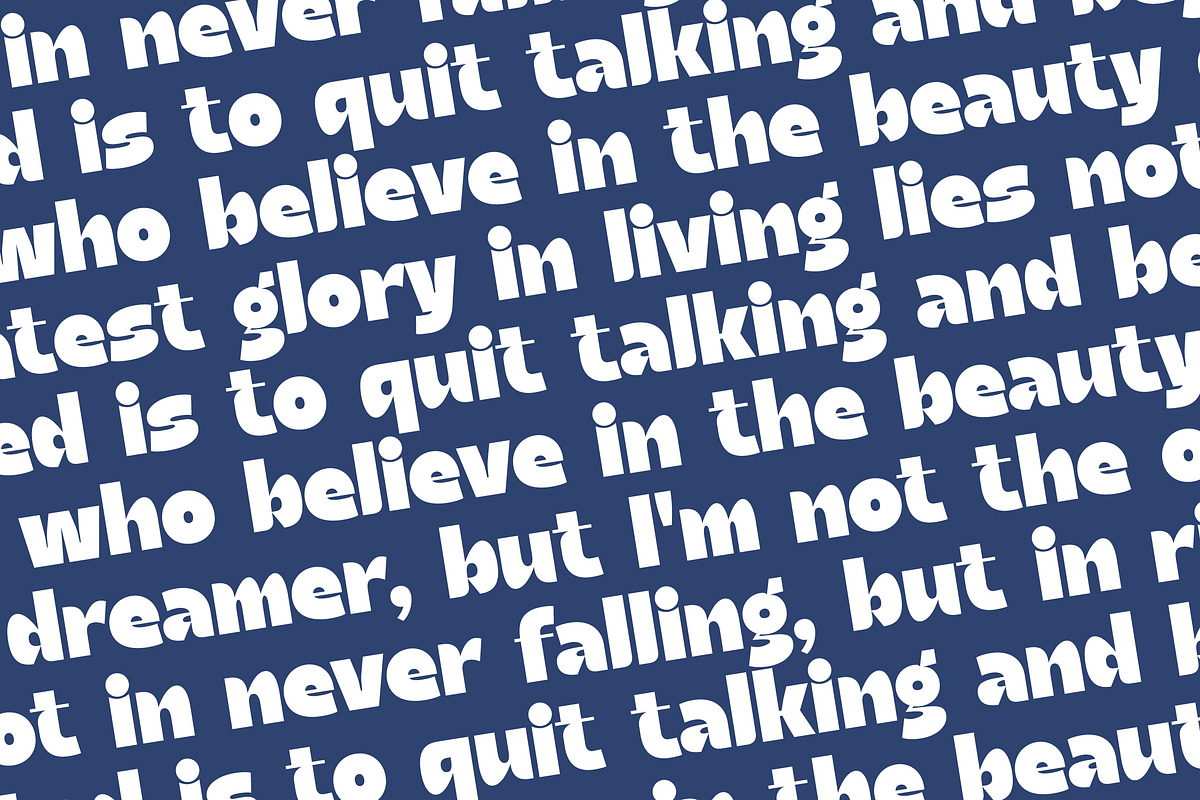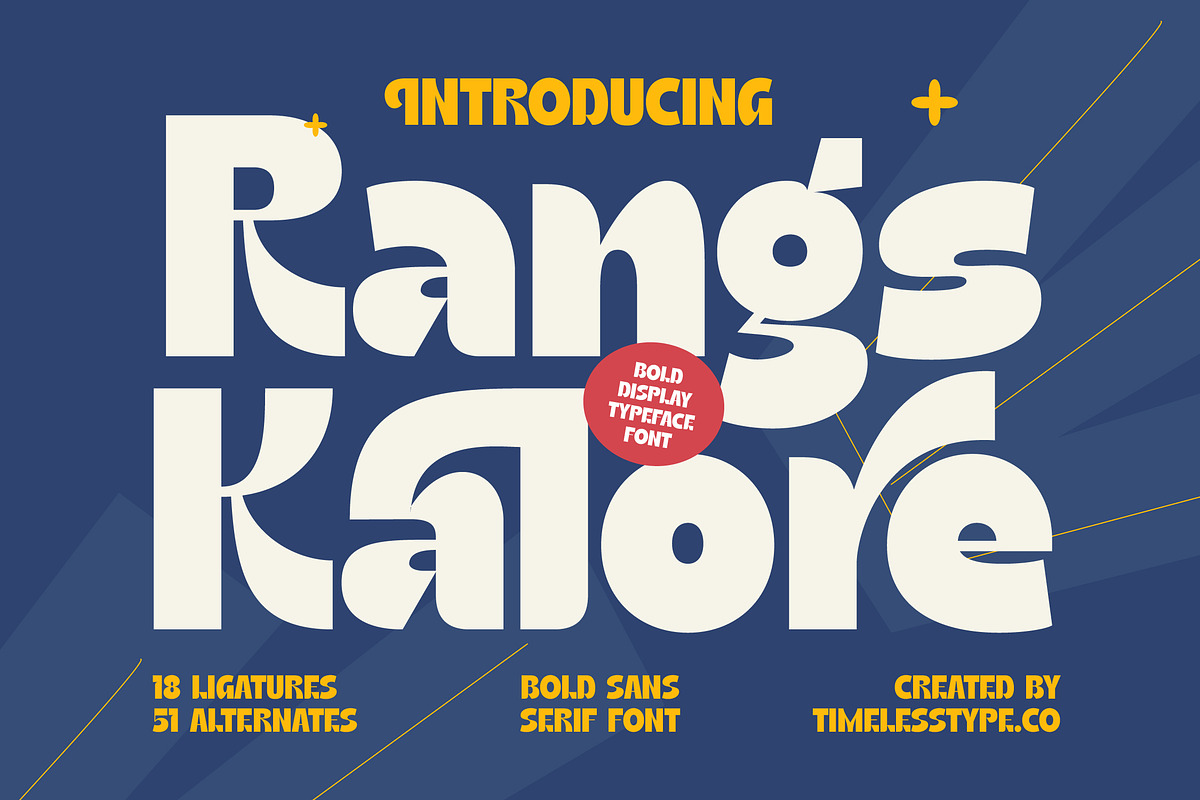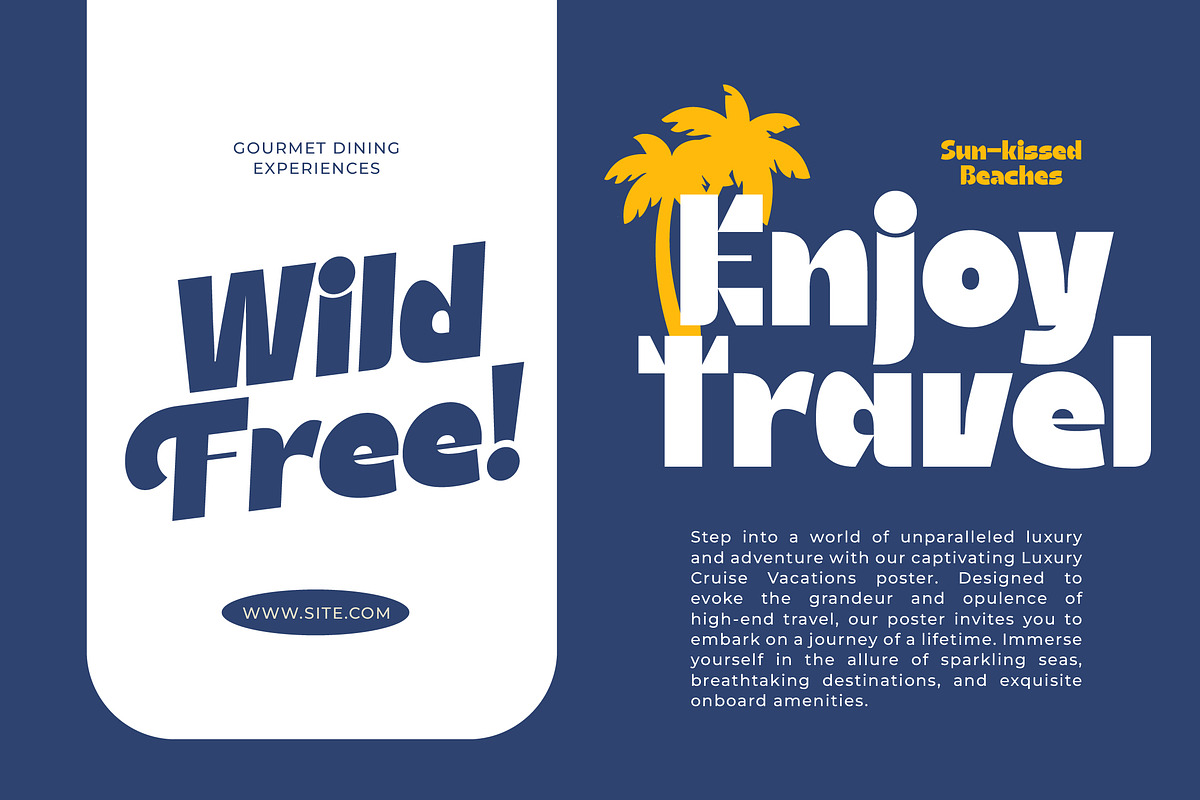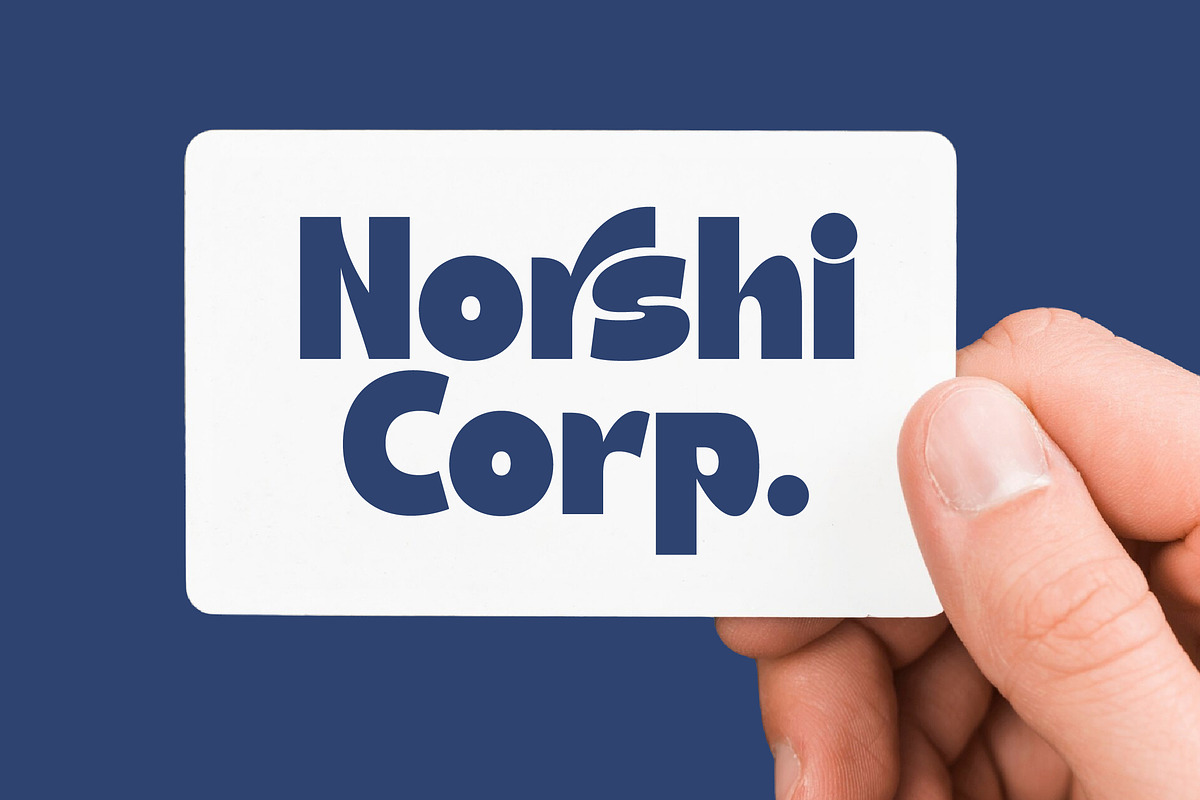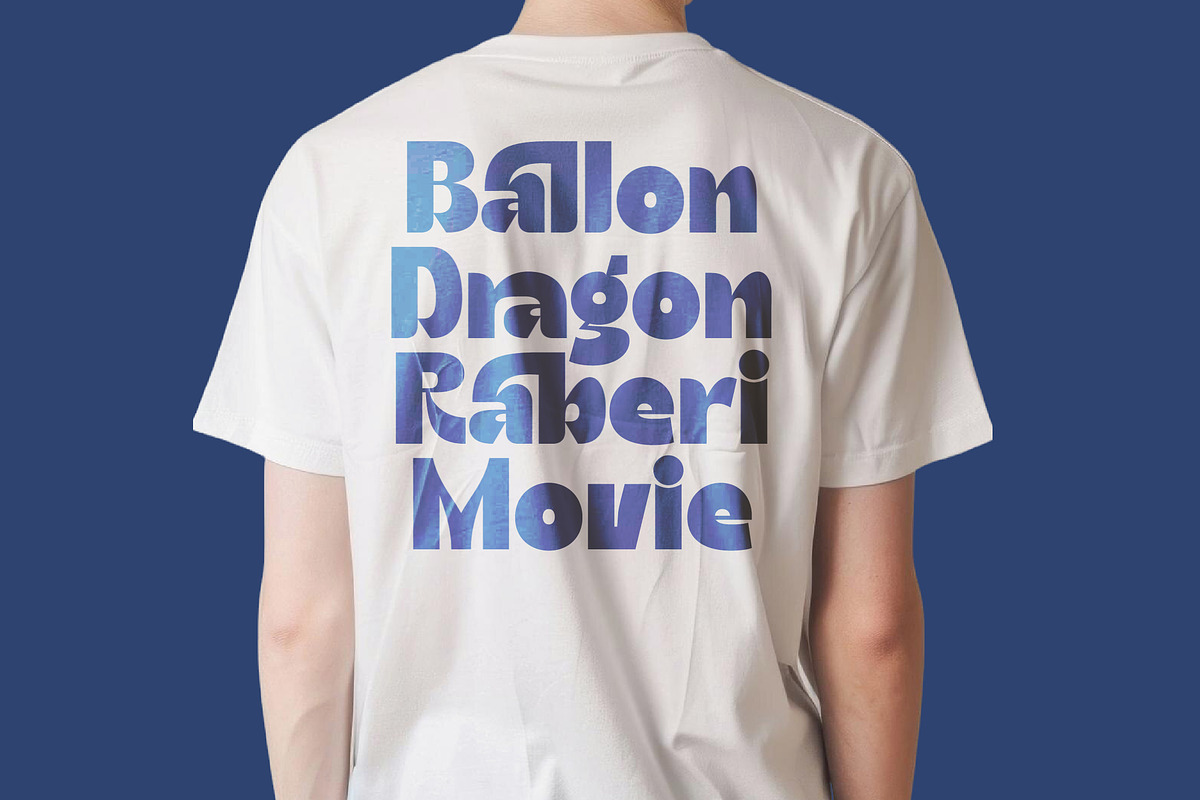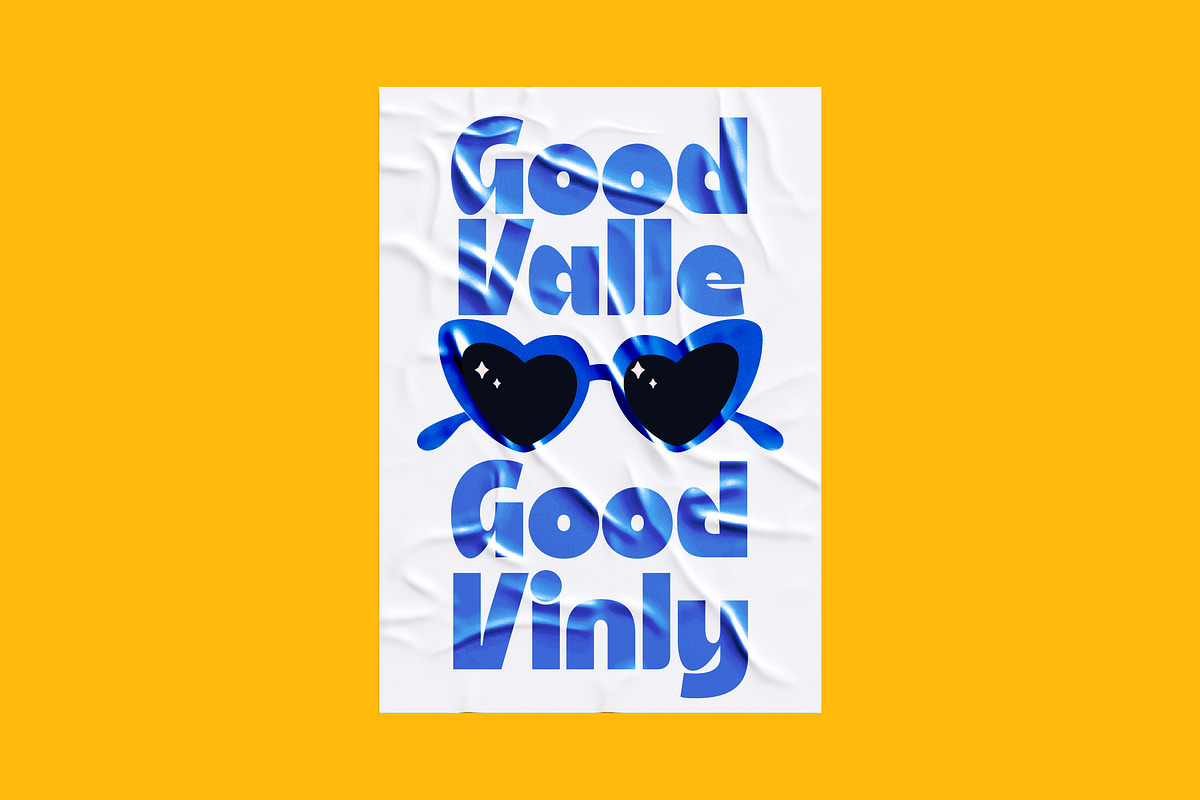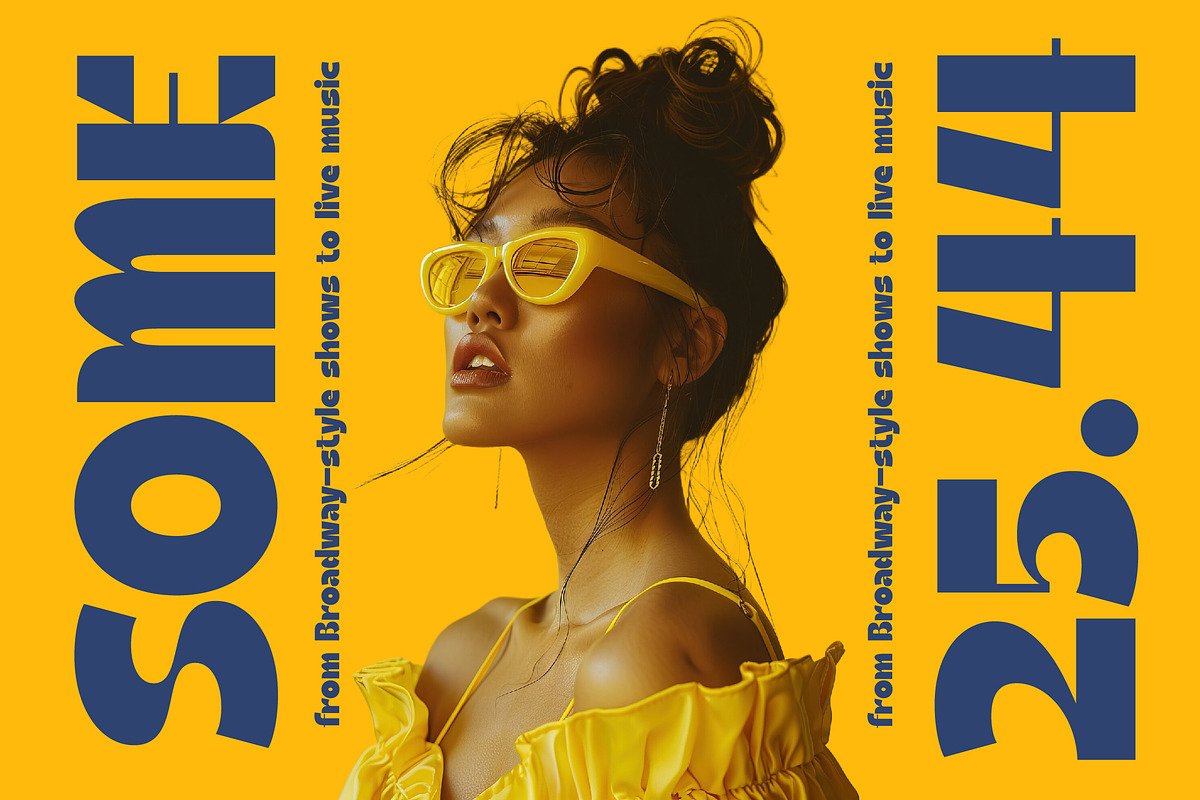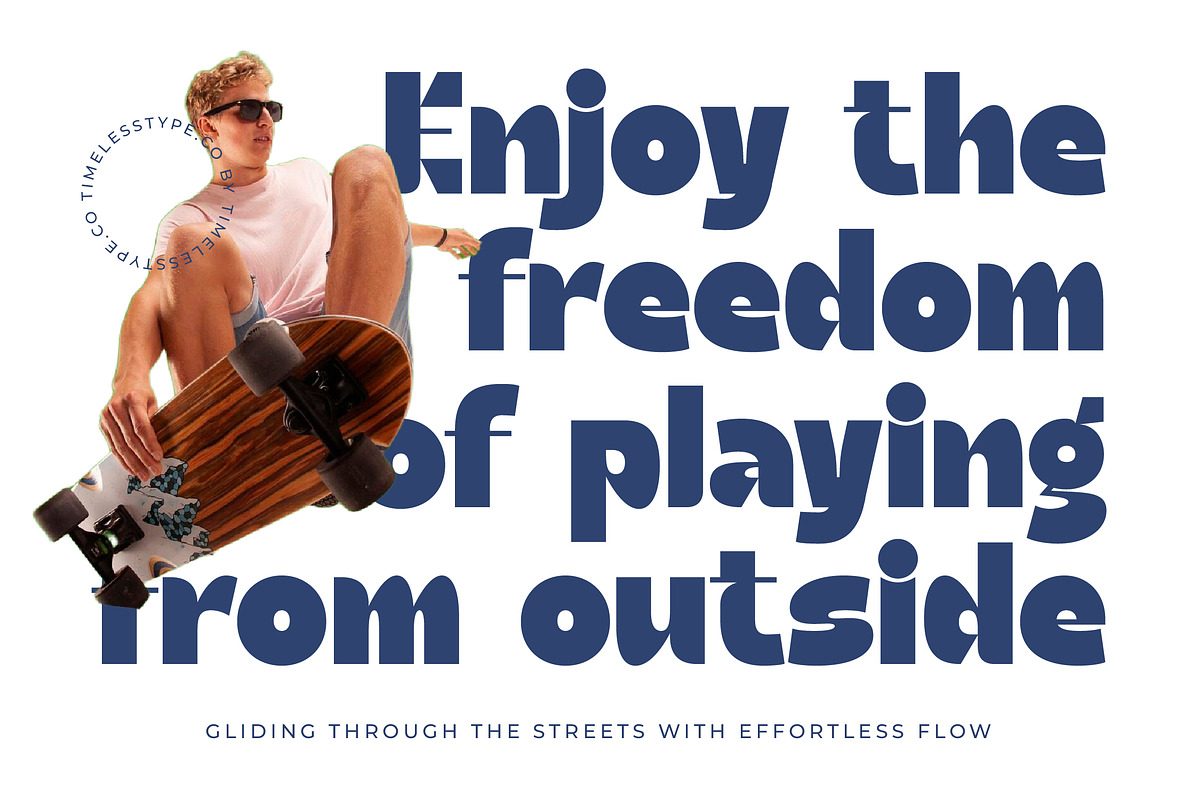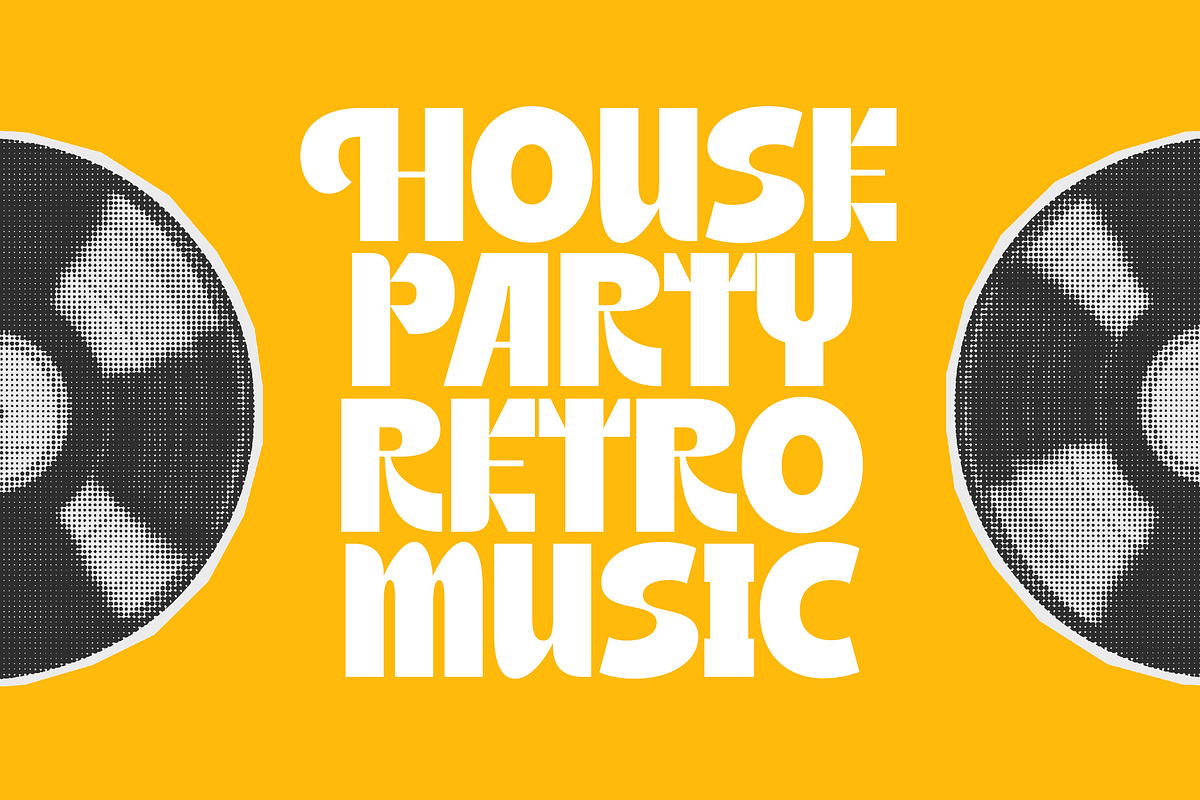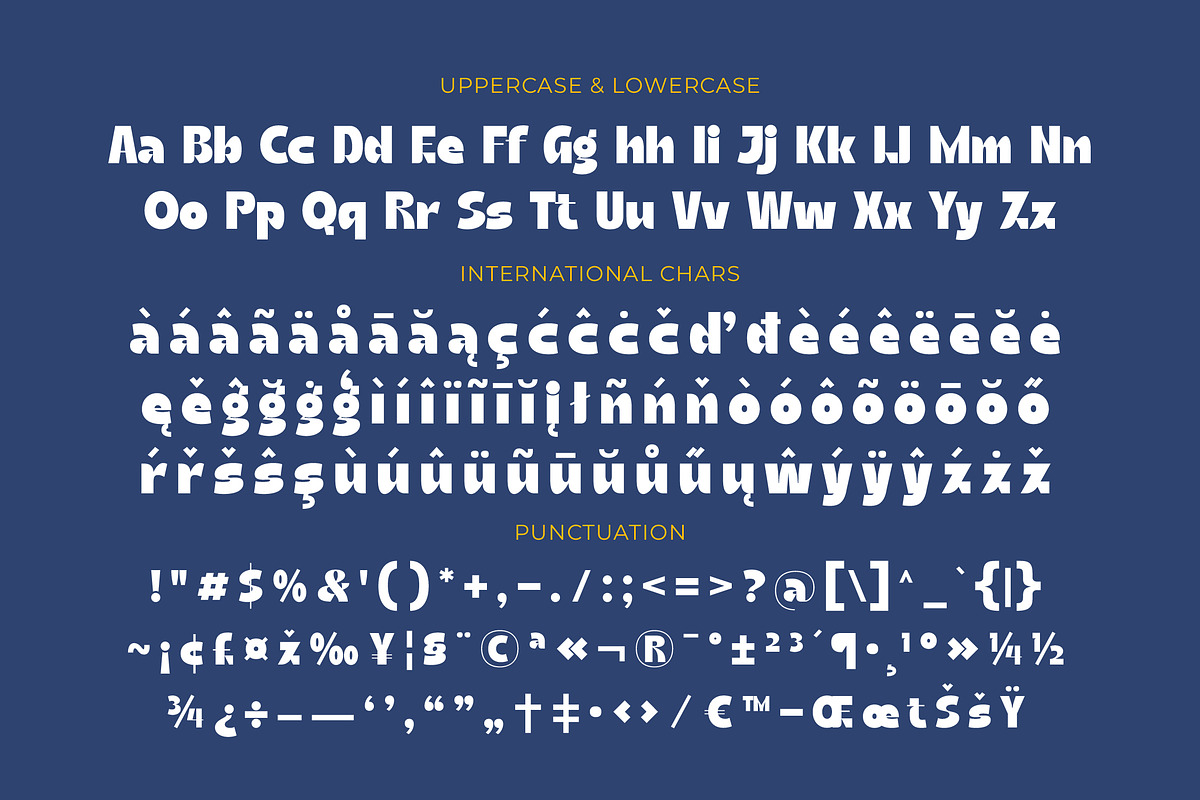
Rangs Kalore Bold Display Serif
Elevate your creative vision with Rangs Kalore, a typeface that masterfully blends nostalgia with a cutting-edge aesthetic. This bold display font is designed to command attention and infuse every project with a distinct, memorable personality that resonates with confidence and style.
Drawing inspiration from the vibrant energy of the 1970s and the sleek precision of contemporary design, this font captures a unique retro-future atmosphere. It channels the spirit of classic magazine layouts while maintaining a fresh, experimental edge that feels perfectly at home in today's visual landscape.
With its thick strokes and playful curves, this modern serif display offers an unparalleled branding impact for those seeking luxury typography. The high-contrast serif elements create a rhythmic flow that transforms simple text into an editorial font masterpiece, ensuring your message is felt as much as it is read.
As the modern serif trend continues to dominate high-end design, Rangs Kalore stands out as a premier choice for editorial display fonts. It taps into the demand for character-driven typography that breaks away from traditional constraints, offering a versatile tool for designers who want to stay ahead of the curve.
This typeface is an ideal choice for high-impact logo design and comprehensive branding systems that require a strong visual identity. From sophisticated packaging and avant-garde fashion spreads to elegant wedding stationery and editorial headlines, its versatile nature adapts to various high-end applications with ease.
The font is packed with creative potential, featuring 18 unique ligatures and 51 stylish alternates to help you customize every word and layout. It also includes comprehensive multilingual support and a wide range of international characters, ensuring your global projects maintain a consistent look while exploring creative swashes.
- Ligature 18 Alternate 51